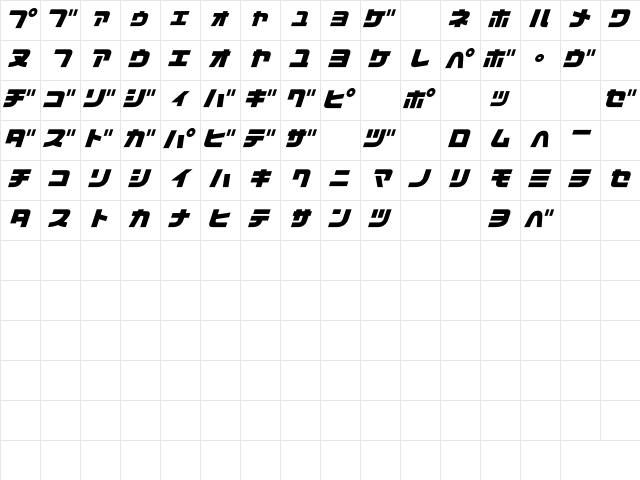
D3 Cozmism Katakana Oblique Regular
Design Context for D3 Cozmism Katakana Oblique Typeface
D3 Cozmism Katakana Oblique offers clean, dependable letterforms without strong stylistic allegiance, making it a practical choice for designers who need flexibility. The slanted form adds forward momentum and visual energy.
Pro Tip: Try D3 Cozmism Katakana Oblique for annotation and caption copy alongside an upright companion — the contrast in angle creates a dynamic but ordered typographic system.